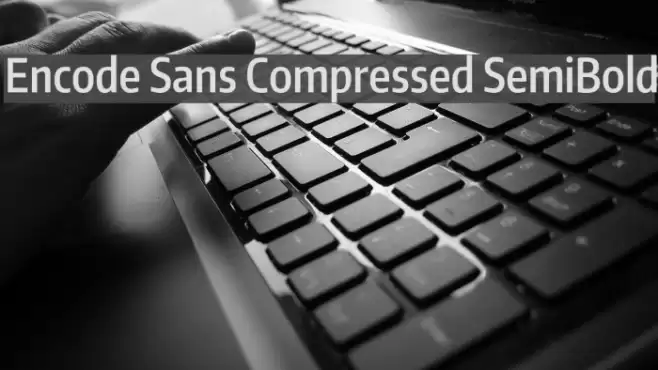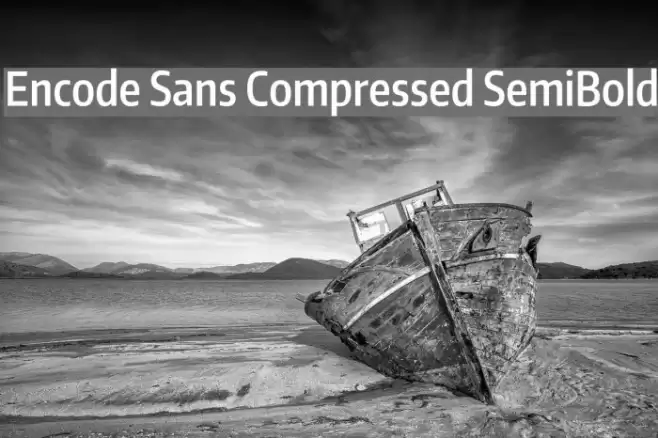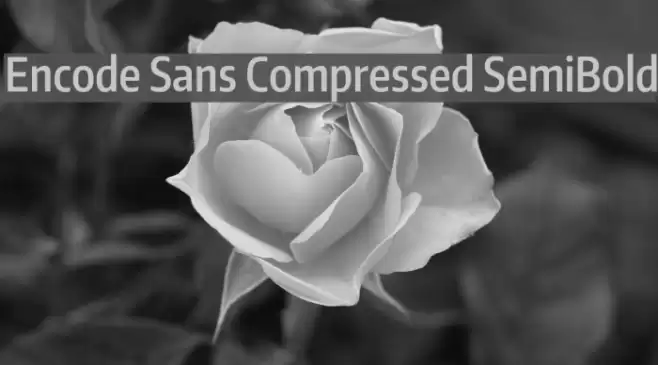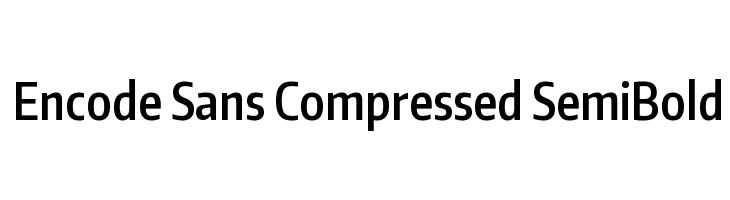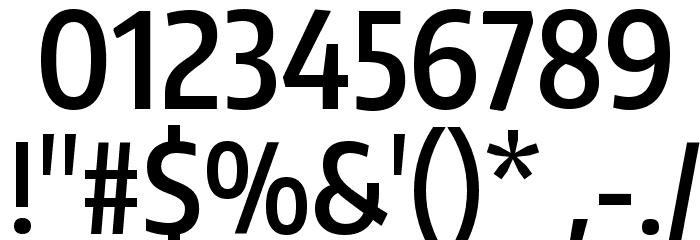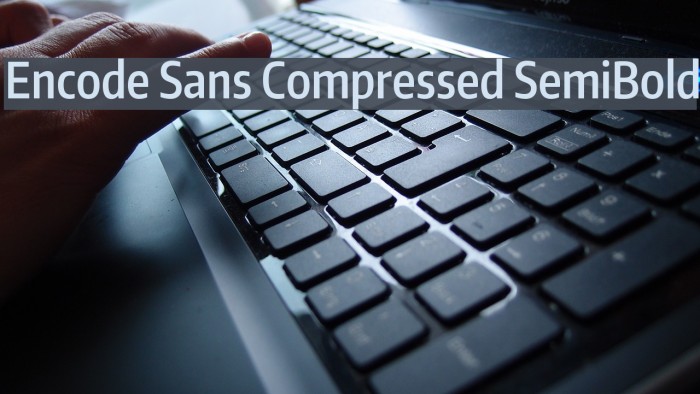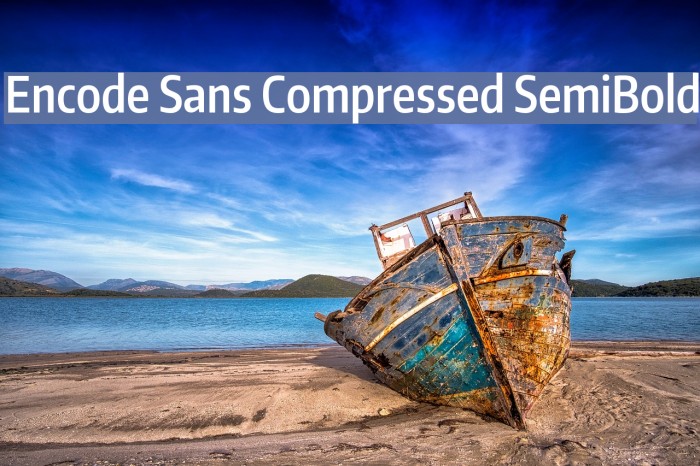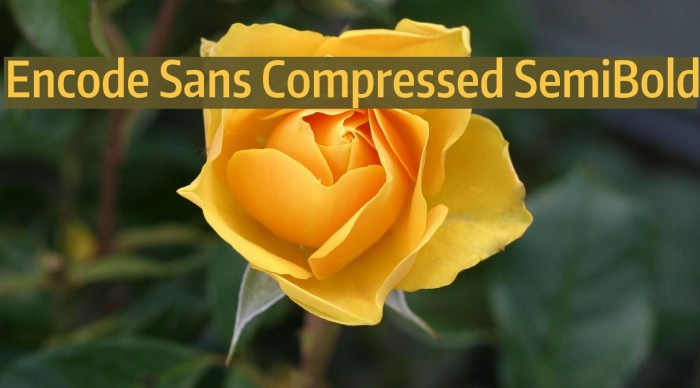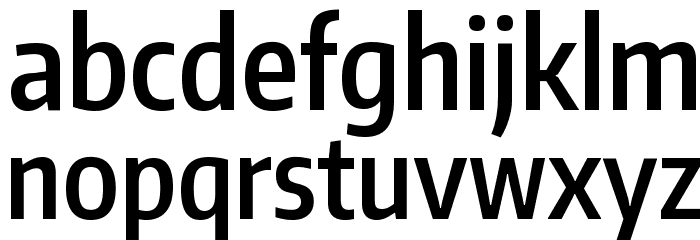
Encode Sans Compressed SemiBold Font
Encode Sans Compressed SemiBold Description
This font features a clean and modern sans-serif design with a compressed width, making it ideal for space-saving applications. The semi-bold weight provides a strong presence without overwhelming the viewer, maintaining readability across various sizes. Its geometric shapes and uniform stroke widths contribute to a contemporary aesthetic, while the slightly rounded edges soften the overall appearance. The font's versatility is evident in its ability to adapt to both digital and print media, offering a professional yet approachable look. The character set includes a full range of uppercase and lowercase letters, numerals, and a variety of special characters, ensuring comprehensive language support and typographic flexibility.
A modern, compressed sans-serif font with semi-bold weight and geometric design from Uncategorized fonts.
- Proposed Projects: Ideal for branding, web design, advertising, and editorial layouts where space is limited.